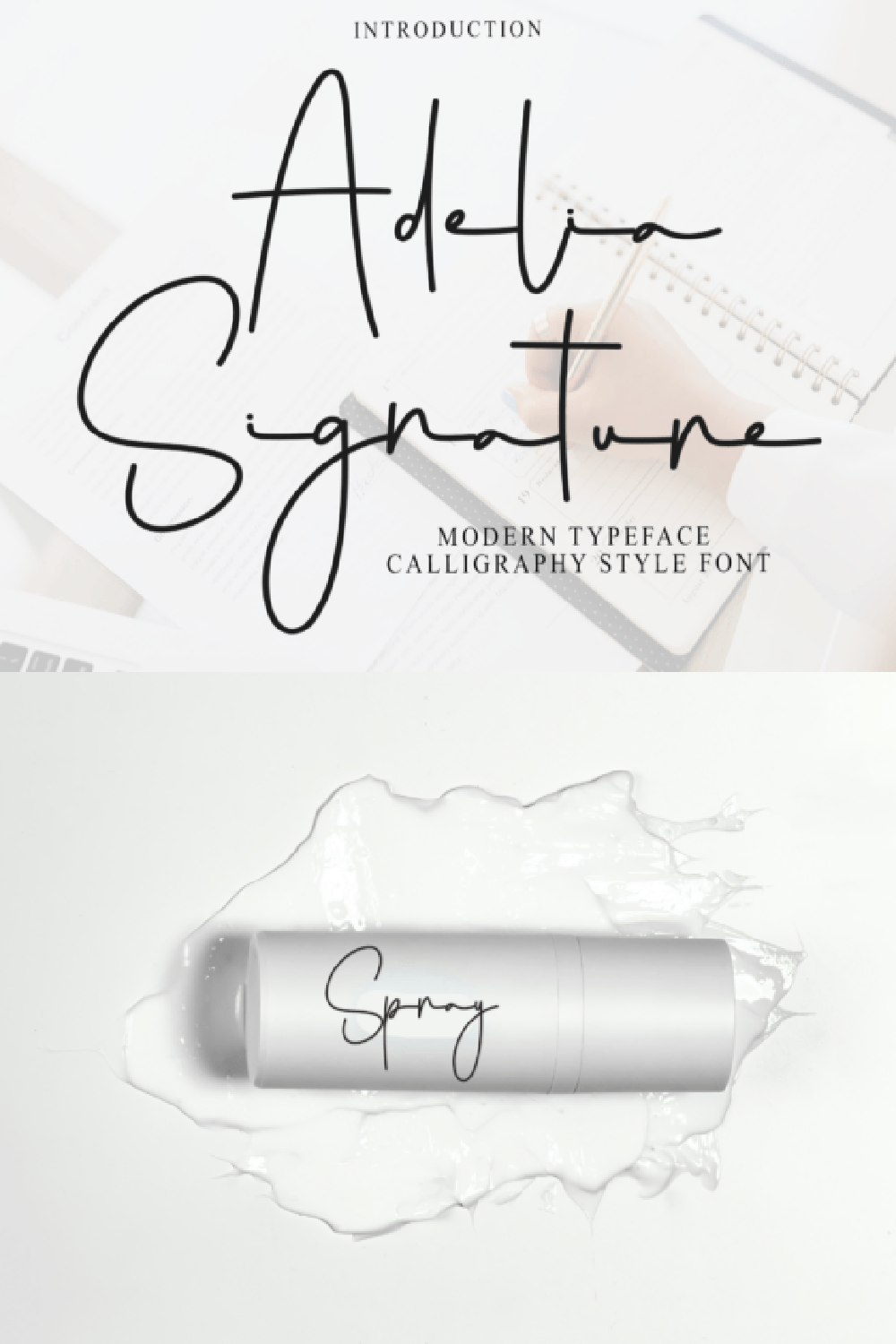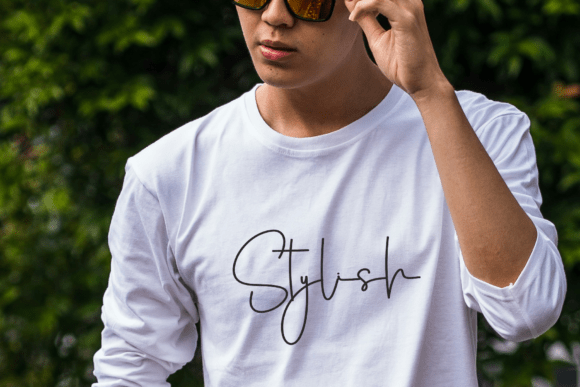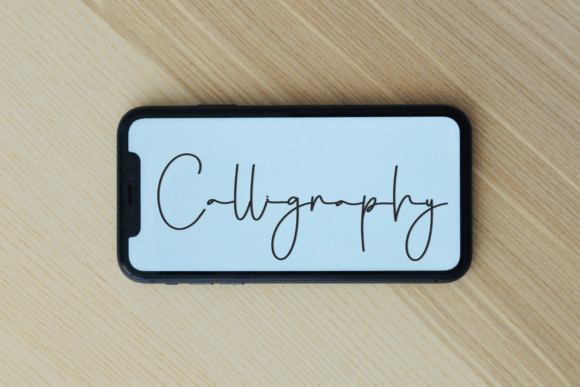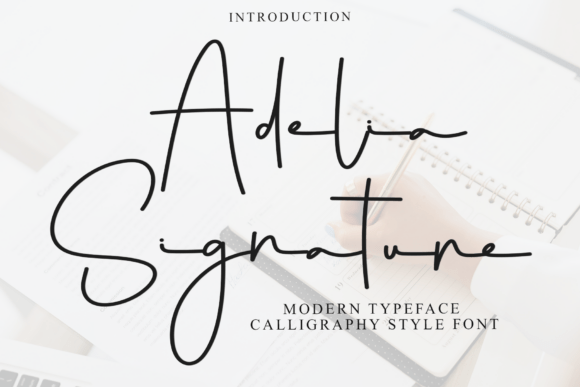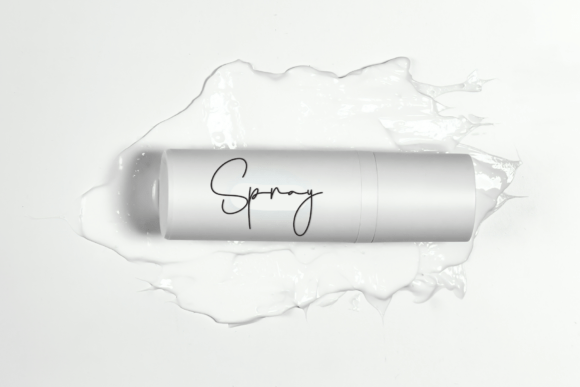
About the Adelia Signature Font
Elevate your designs with Adelia Signature Font, a font that combines sophistication with readability. Adelia Signature is a festive and merry typeface that captures the spirit of the holiday season. With its decorative elements and whimsical flair, it adds a touch of enchantment to your designs. Perfect for greeting cards, gift tags, and holiday-themed projects, this font brings a cheerful and nostalgic ambiance to your words. Let your typography shine with the magic of Beautiful Font!